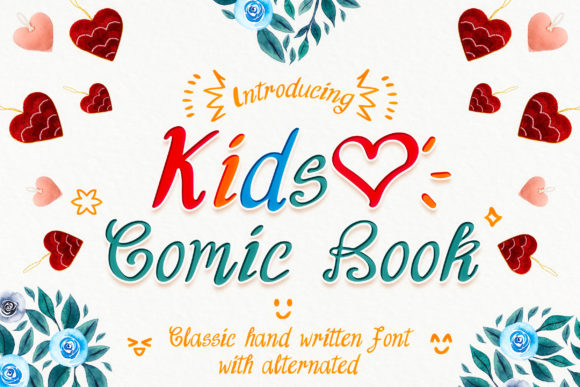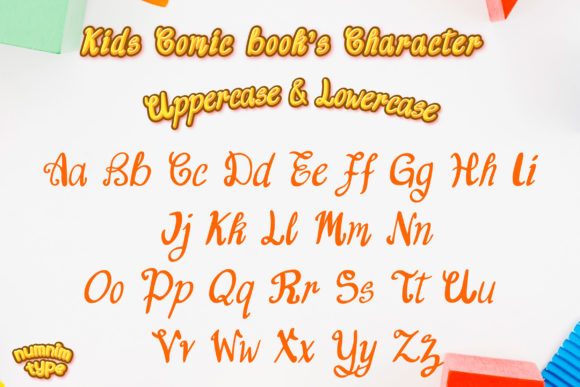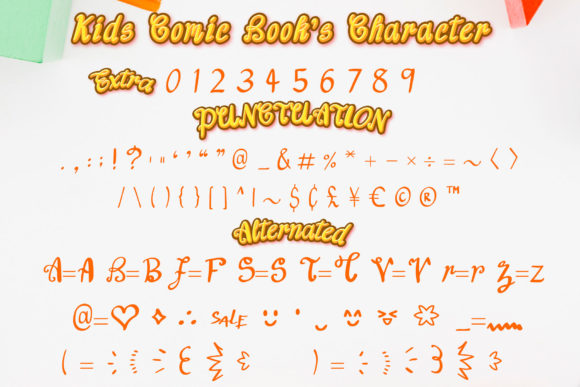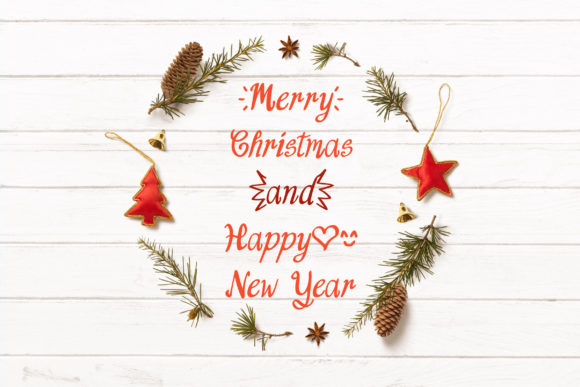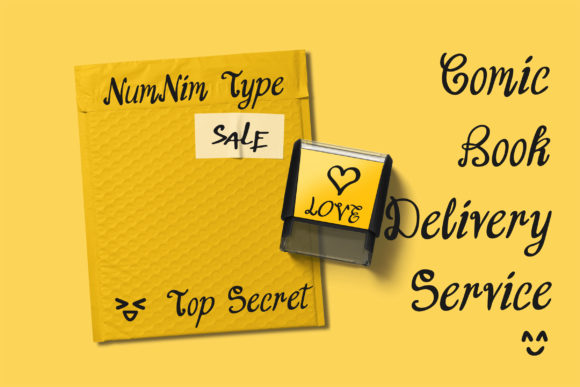
Kids Comic Book is a joyful and delicate handwritten font with cute doodle elements. This font is perfect for festivce as well as children themed designs, especially when combined with bright colors. The perfect font for greeting cards, social media posts, and so many other crafts and designs!This font is PUA encoded which means you can access all of the glyphs and swashes with ease!